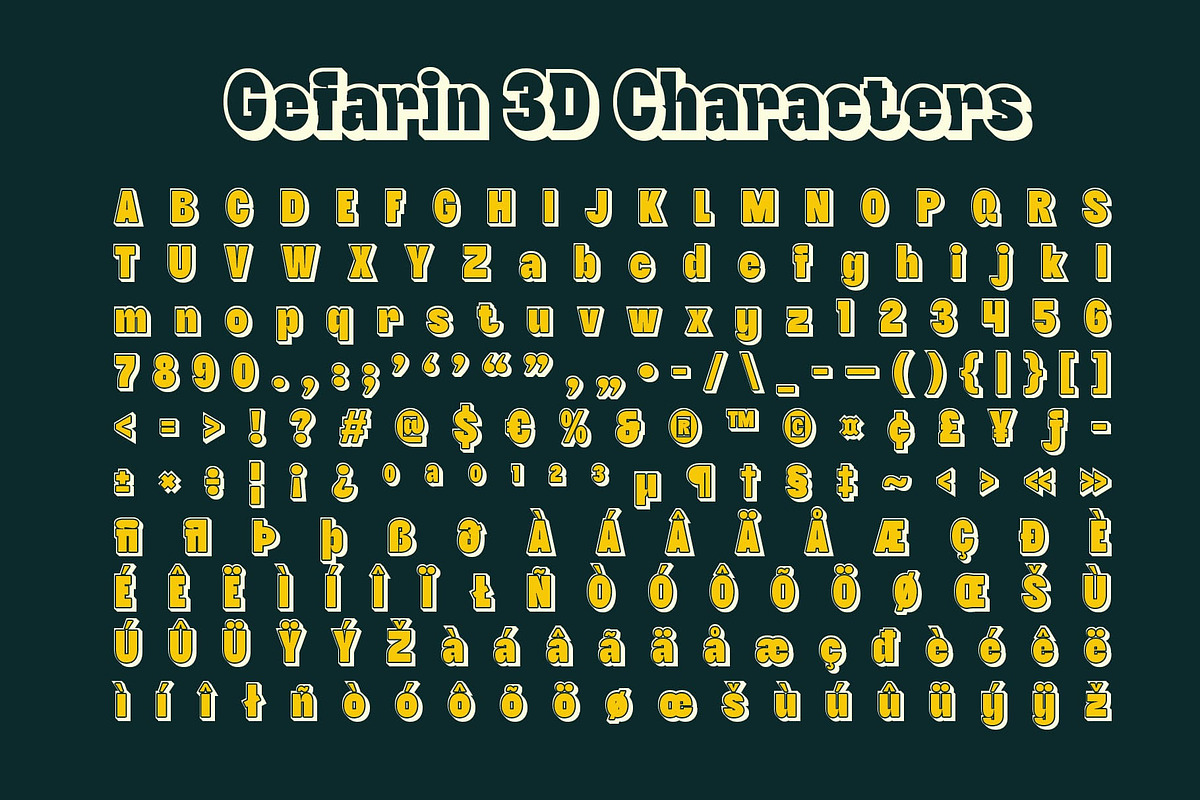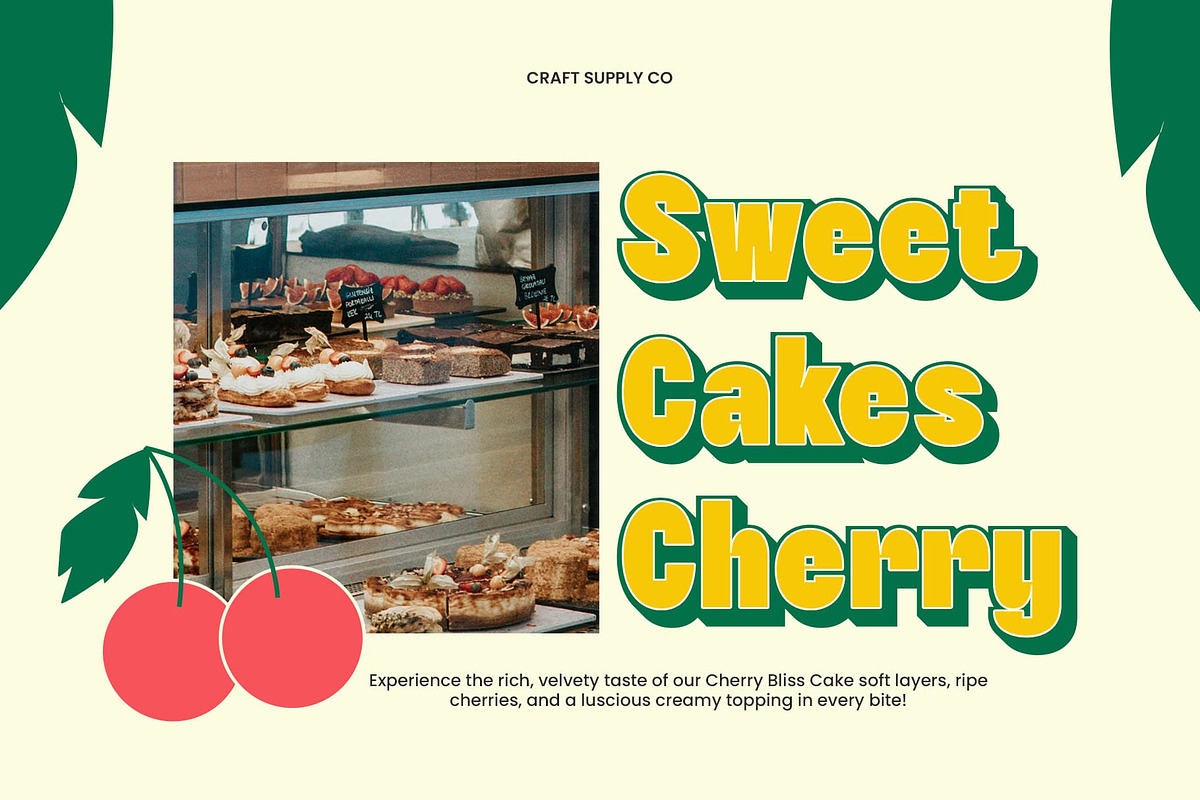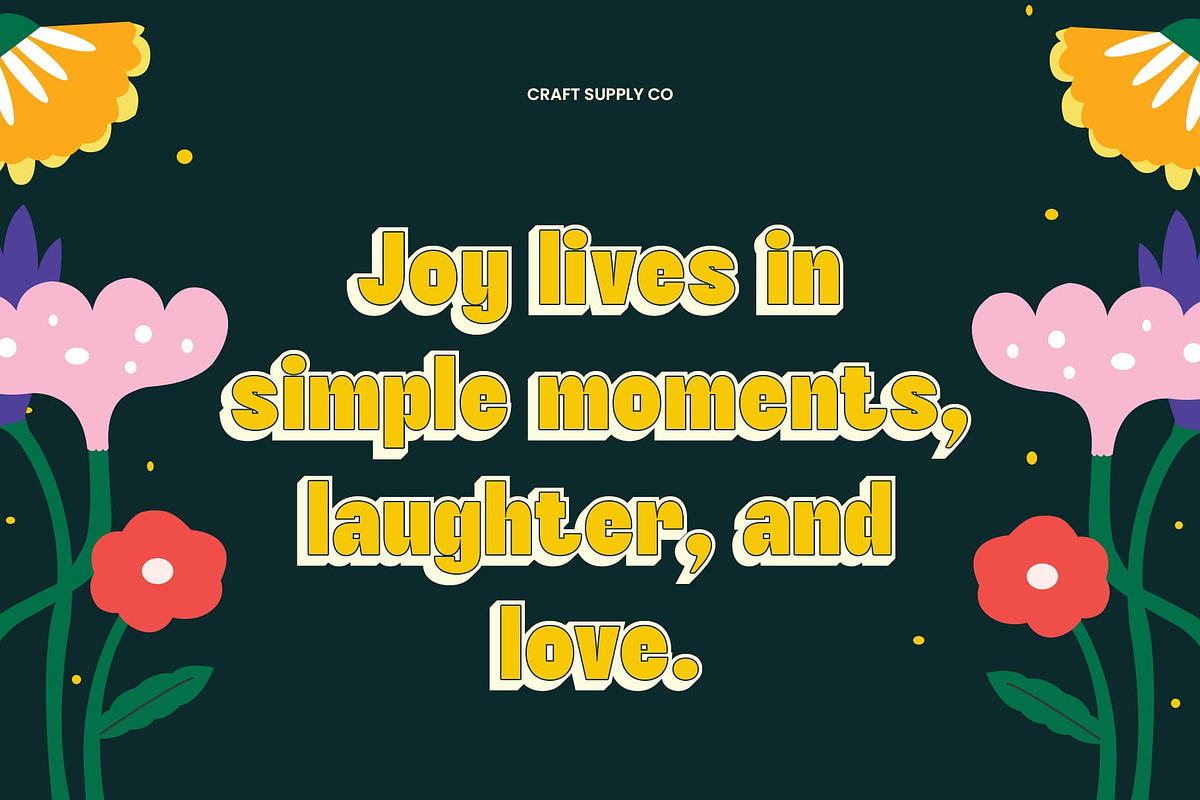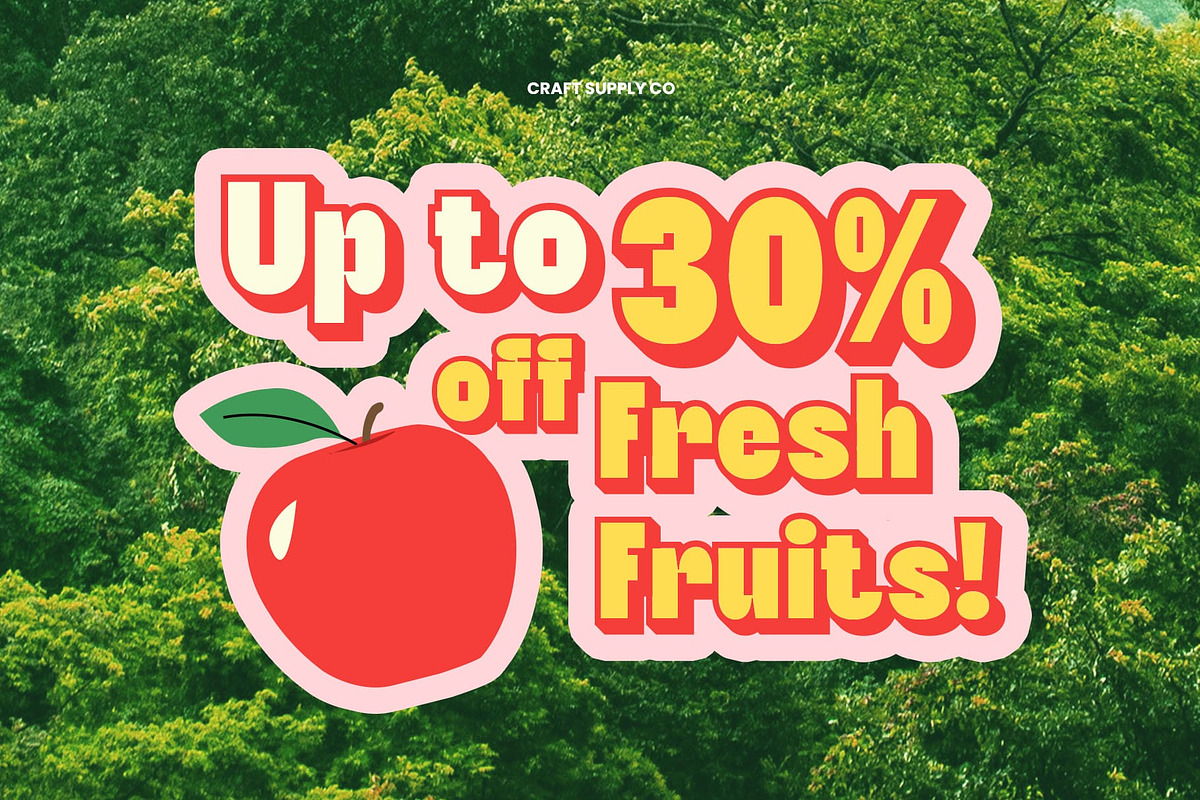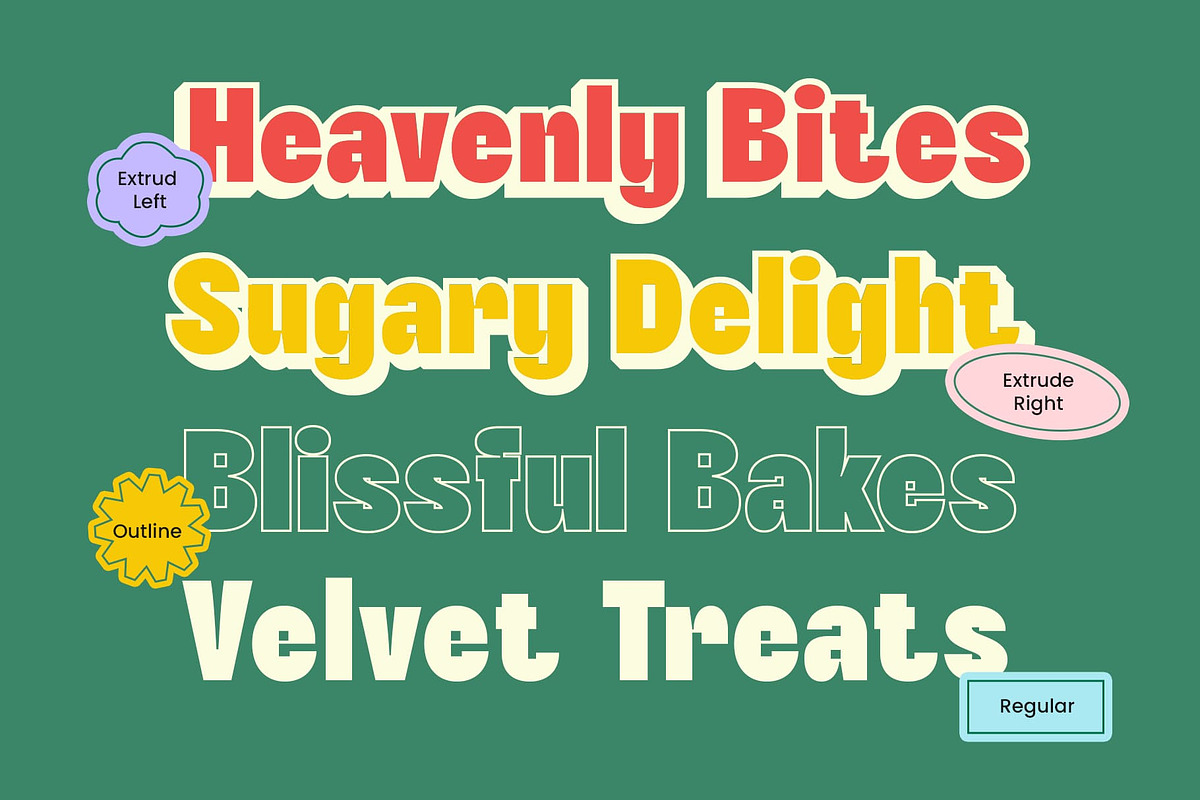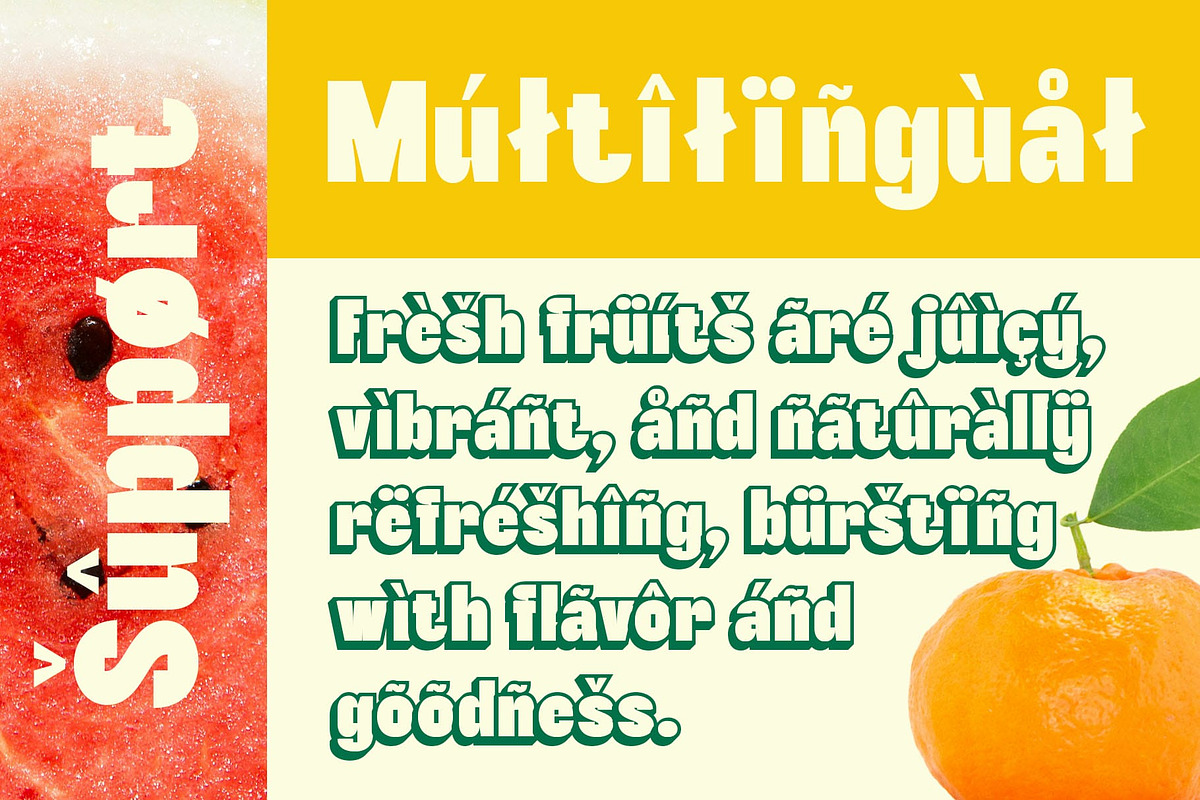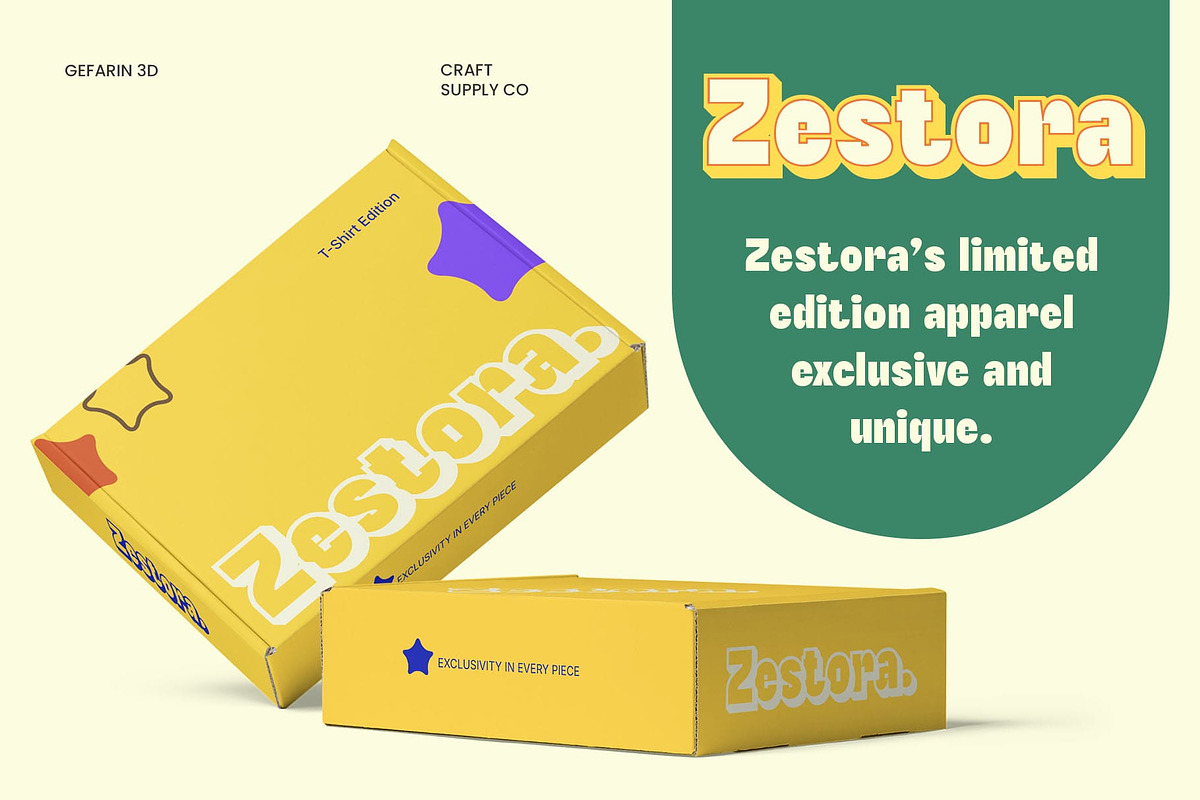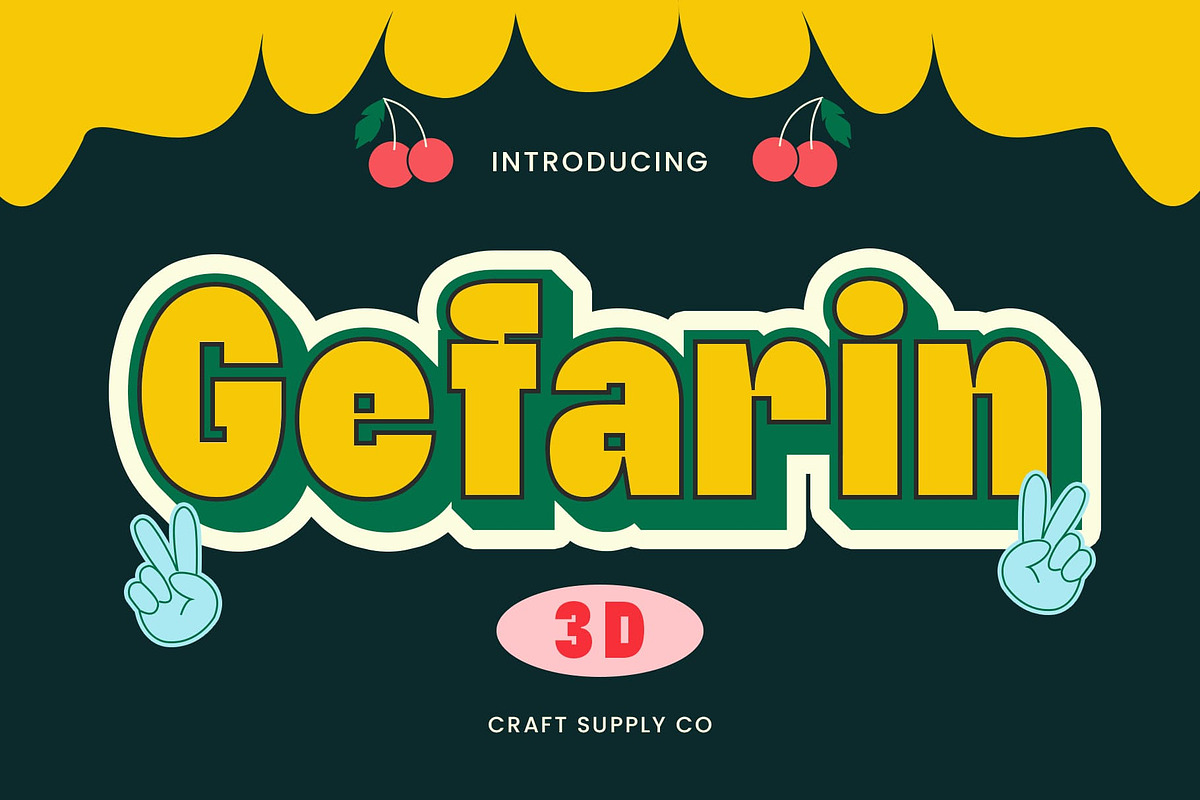
Gefarin 3D
Gefarin 3D Font: Bold, Funky, and Full of Joy
Playful Sans-Serif with a Cheerful Personality Gefarin 3D is a modern sans-serif font that blends boldness, cuteness, and funkiness into a single eye-catching design. With its rounded and playful letterforms, this font radiates a friendly and energetic vibe, making it perfect for projects that need a fun and inviting touch.
3D Effect for Added Depth and Impact The 3D effect enhances the font’s visual appeal, creating a sense of depth and dynamism. This feature makes Gefarin 3D even more engaging and lively, ensuring that any text pops off the page with a bold and vibrant presence. Whether in branding, packaging, or digital content, this font brings an exciting and dynamic look.
Perfect for Kids’ Designs and Creative Branding Designed with joy and playfulness in mind, Gefarin 3D is an excellent choice for kids’ designs, playful posters, and cheerful advertising. Its smooth and friendly shapes make it appealing for toy packaging, children’s books, or creative logos that need a fun and welcoming feel.
A Fun and Versatile Font for Vibrant Projects Gefarin 3D is not just cute and bold—it is also versatile. From branding for fun-loving businesses to social media graphics and event invitations, this font adds personality and excitement to any design.